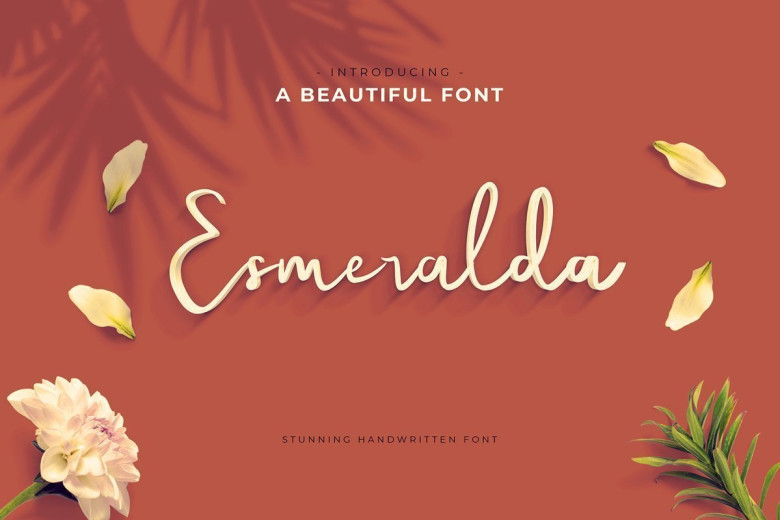
Esmeralda Handwritten Script Font
Esmeralda Font is an elegant handwritten script font. Get inspired by its unique shape and character! Perfect for many different project such as logos & branding, invitation, stationery, wedding designs, social media posts, advertisements, product packaging, product designs, label, photography, watermark.